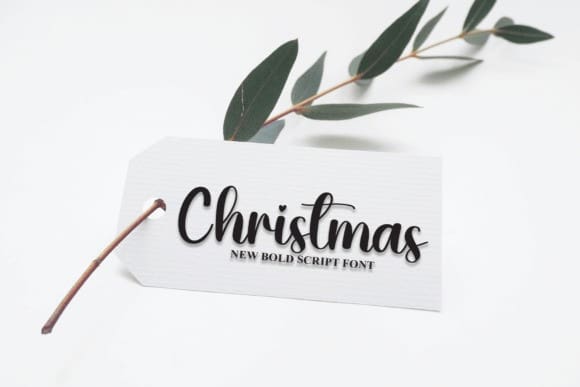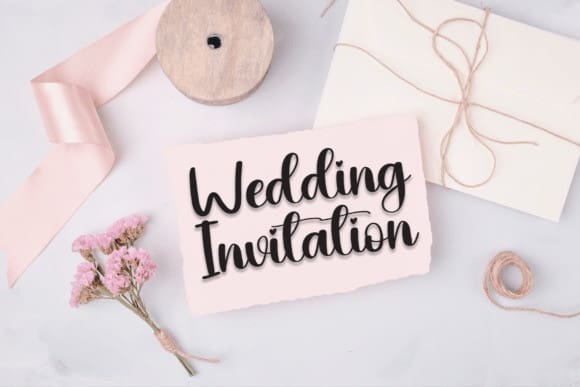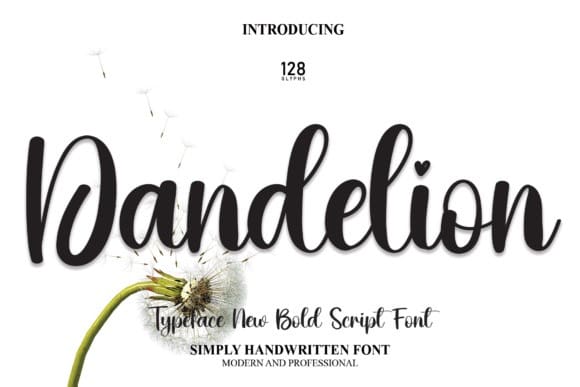
Dandelion Script Typeface
Dandelion Script Typeface, is a stylish and dainty handwritten font. It has beautiful and well-balanced characters and as a result, it matches a wide pool of designs.